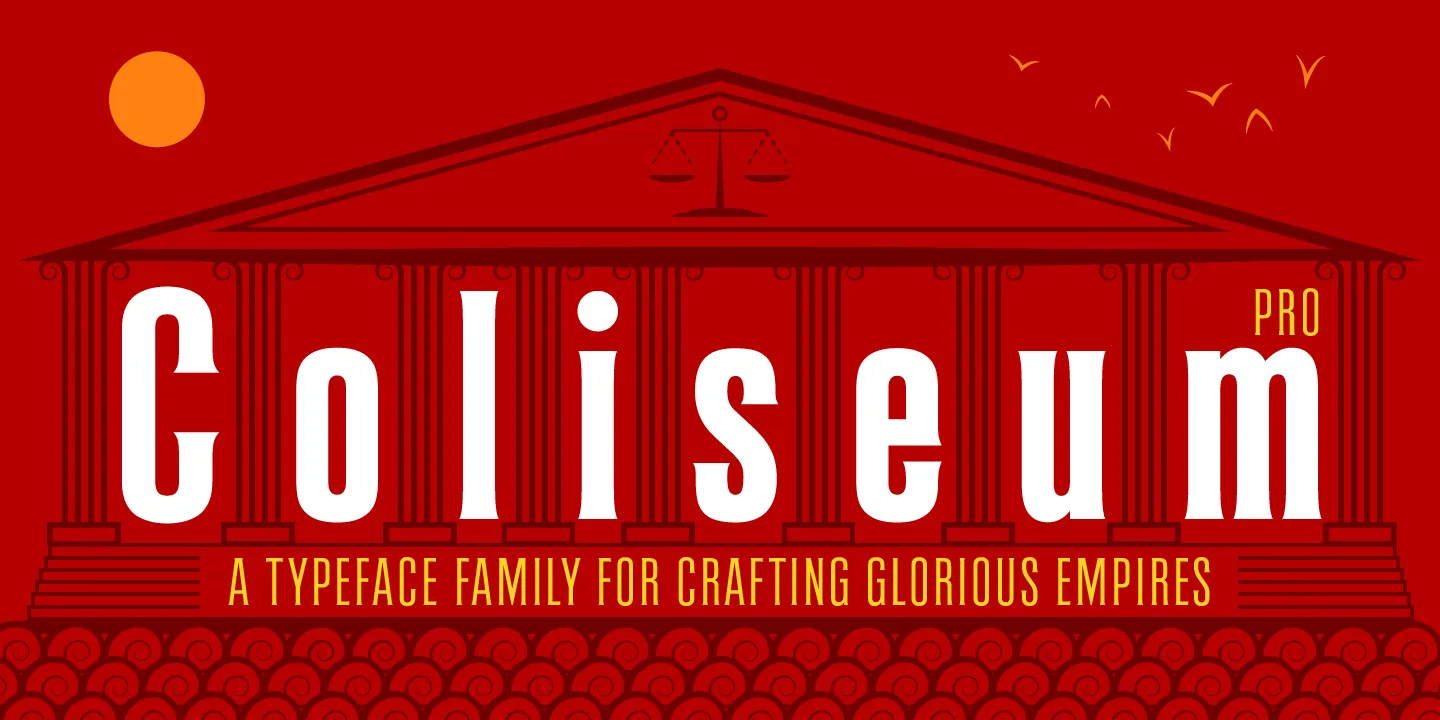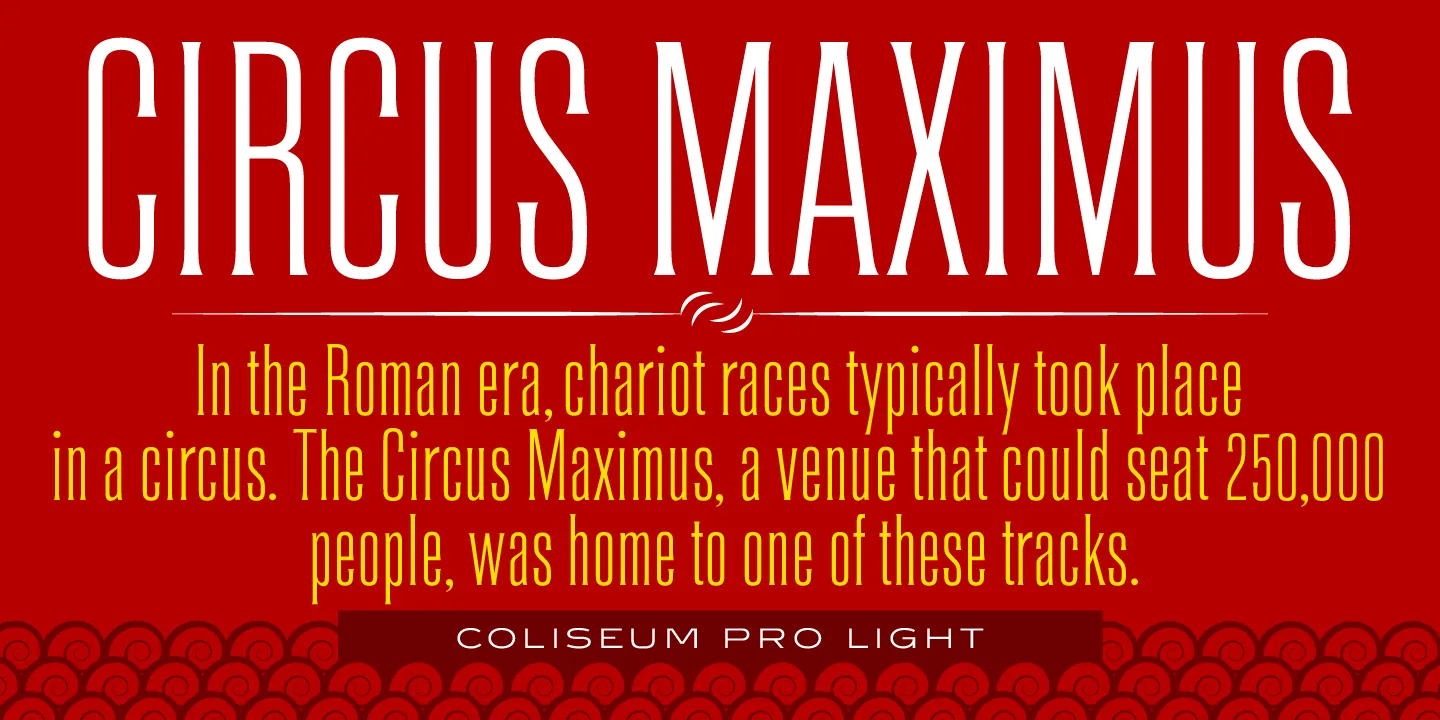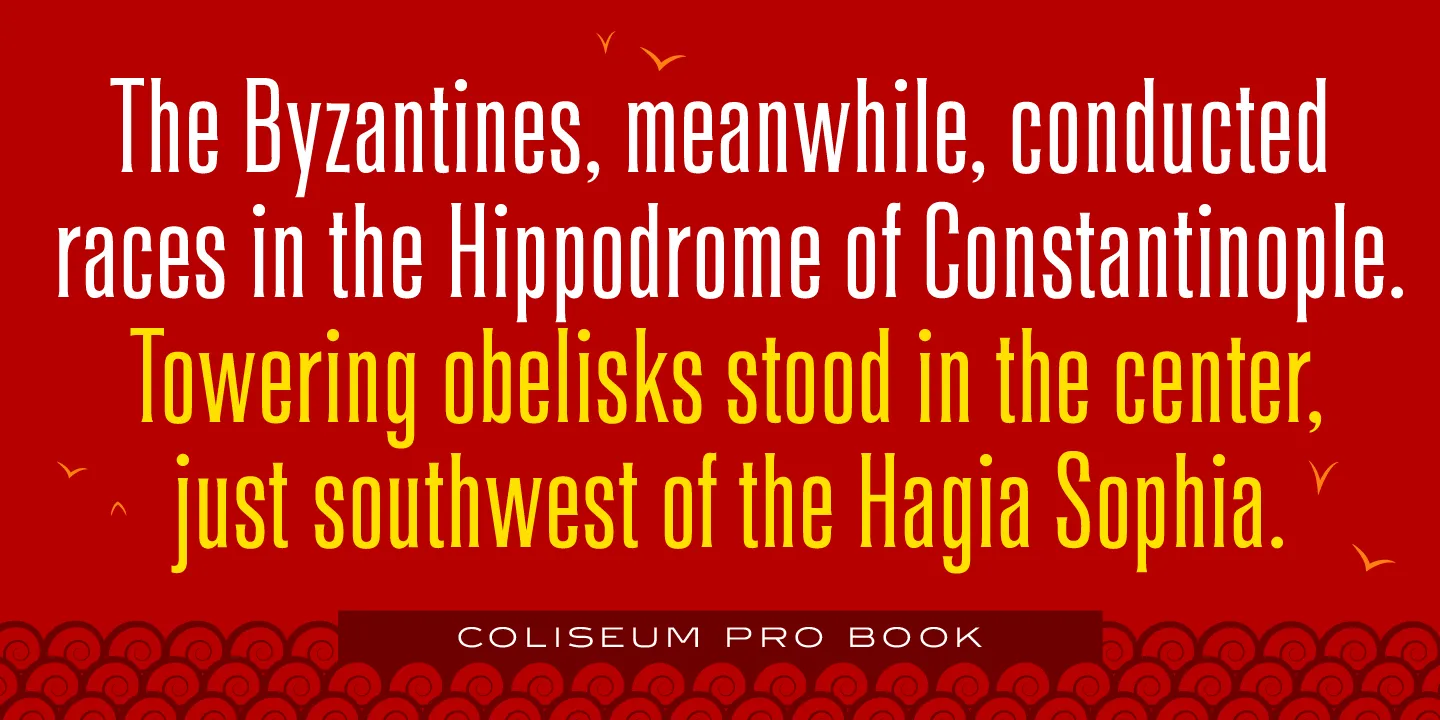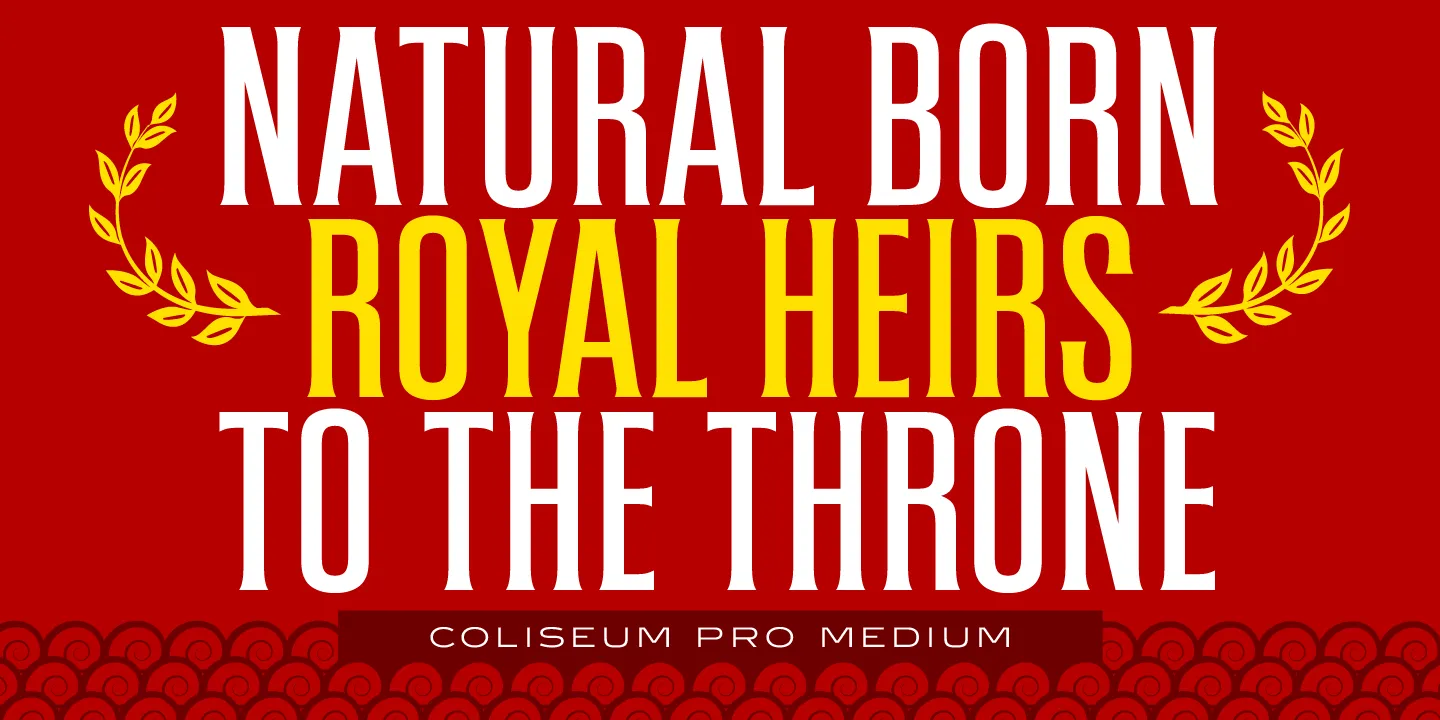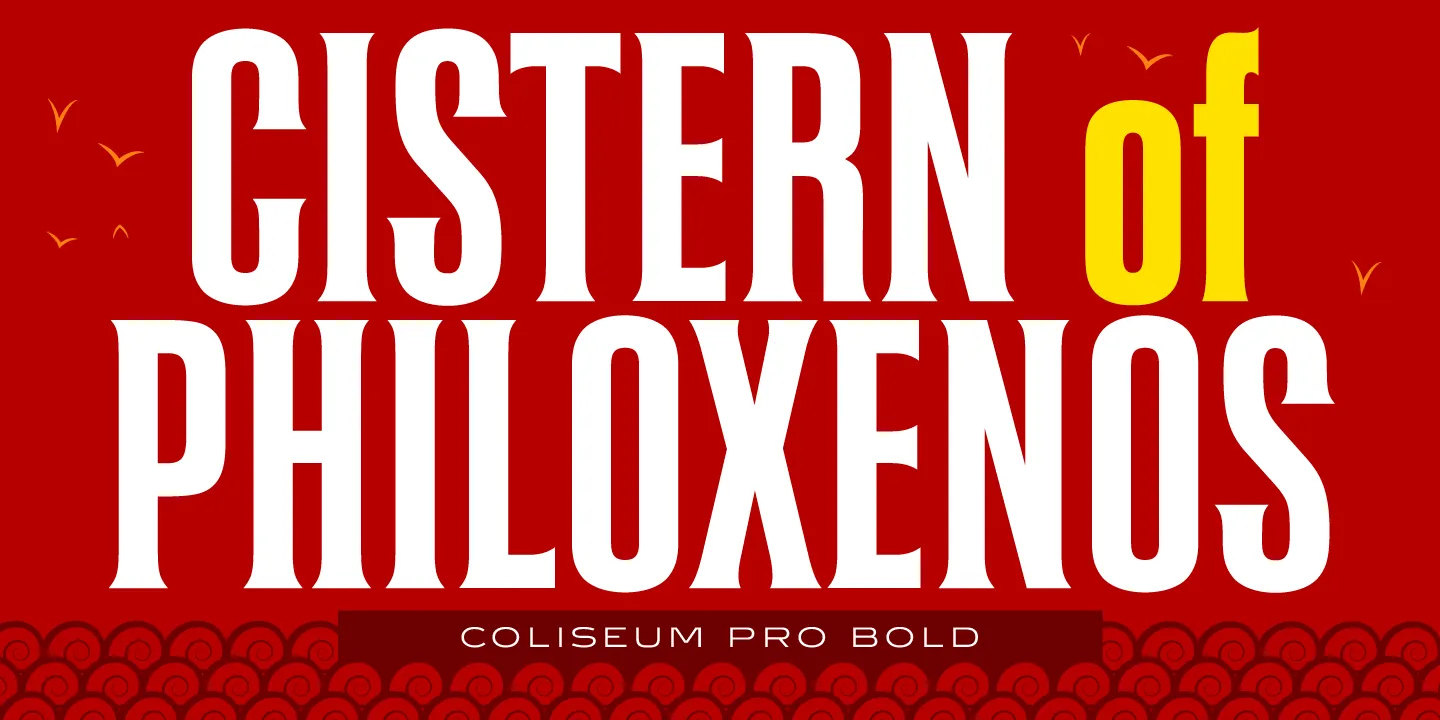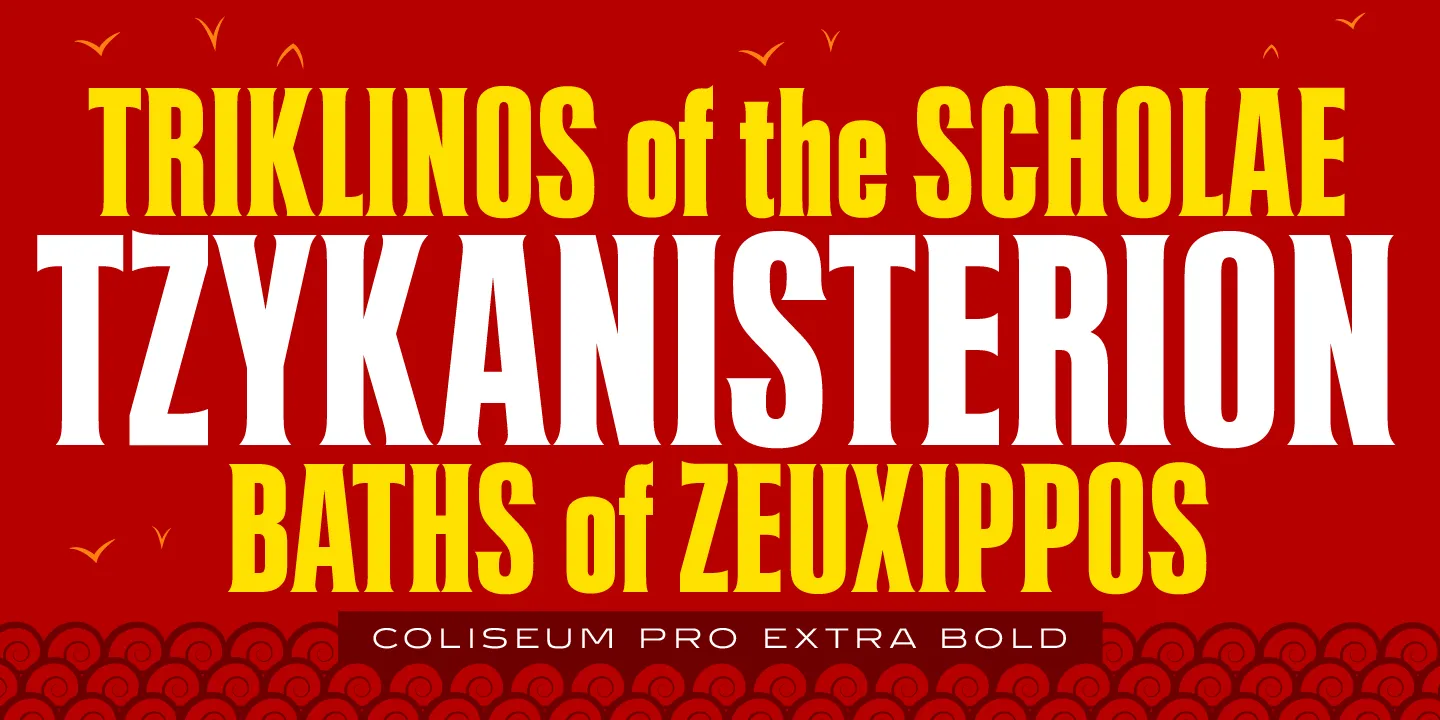
Coliseum Fonts
Coliseum is a five-weight compressed spur serif font family. ITF’s original three-weight Coliseum family, released in 1992, was designed exclusively for the Red Rooster Collection by Julie Hopwood and Pat Hickson. Steve Jackaman (ITF) completely redesigned, redrew, and refined the Coliseum family in 2017, and two additional lighter weights emerged: Light and Book. Coliseum is inspired by Roman display typefaces, and is powerful and eye-catching at any size. Two sister typefaces, Clydesdale and Torpedo, were born from Coliseum’s redesign.